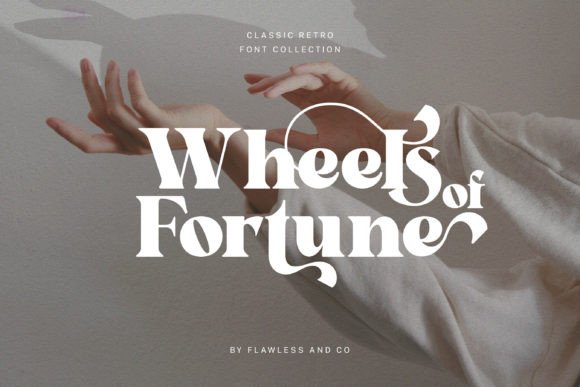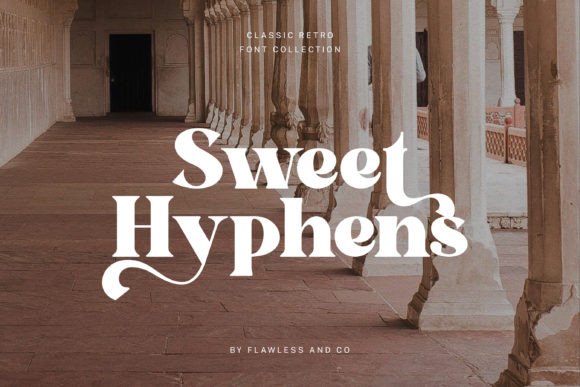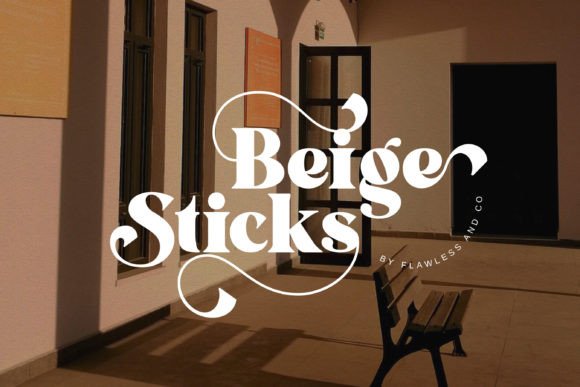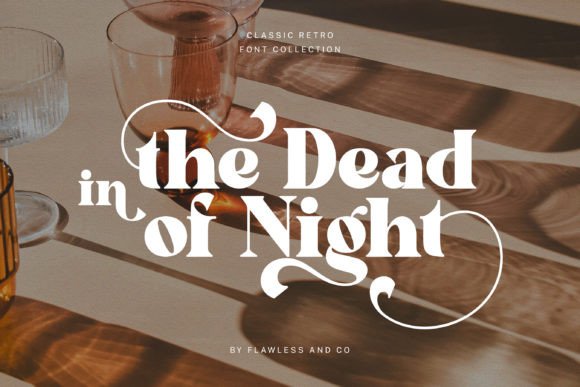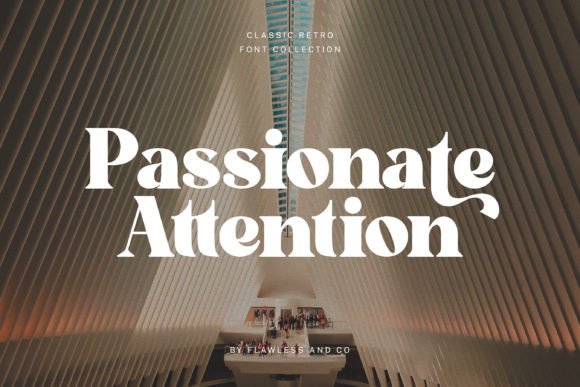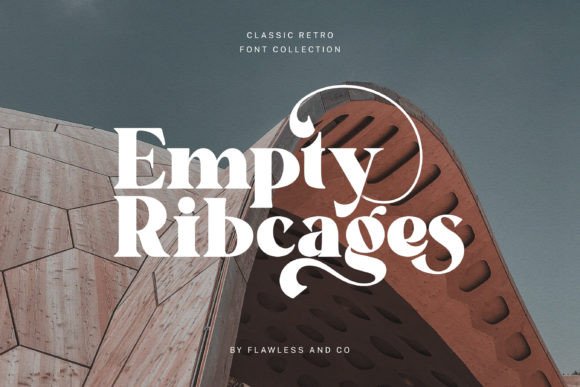
Introducing “Dirty Seven” – A Retro Serif Font
Step into the nostalgia of yesteryear with “Dirty Seven,” a retro serif font that pays homage to the timeless charm of vintage typography. With its bold serifs and distinctive character, “Dirty Seven” is designed to infuse your designs with a sense of retro authenticity and style.
The Inspiration Behind Dirty Seven
The “Dirty Seven” font draws inspiration from the classic typography of the past, with a unique twist. Its design is rooted in the nostalgia of retro aesthetics, evoking memories of vintage posters, classic films, and timeless advertisements. The font’s creator aimed to capture the essence of a bygone era, distilling it into a modern font that’s both nostalgic and fresh.
Key Features of Dirty Seven Font
- Bold Serifs: The “Dirty Seven” font boasts bold serifs that give it a distinctive, eye-catching quality. These serifs add a touch of sophistication and elegance to any design.
- Retro Charm: The font’s retro charm is undeniable, making it perfect for projects that require a vintage or nostalgic feel.
- High Versatility: “Dirty Seven” is a highly versatile font, suitable for a wide range of design applications, from posters and flyers to digital graphics and craft projects.
- Easy to Read: Despite its bold serifs, the “Dirty Seven” font remains easy to read, making it an excellent choice for body text and headlines.
Design Applications for Dirty Seven Font
The “Dirty Seven” font is perfect for designers and crafters looking to add a touch of retro flair to their projects. Here are some design applications where this font truly shines:
- Posters and Flyers: Create eye-catching posters and flyers with a vintage twist, perfect for promoting events, products, or services.
- Digital Graphics: Add a touch of nostalgia to your digital graphics, including social media posts, blog headers, and website designs.
- Craft Projects: “Dirty Seven” is an excellent choice for crafters, suitable for use in scrapbooking, card making, and other paper crafts.
- Branding and Packaging: Use the “Dirty Seven” font to create unique and memorable branding and packaging designs that stand out from the crowd.
Tips for Using Dirty Seven Font Effectively
To get the most out of the “Dirty Seven” font, follow these tips:
- Pair with Modern Fonts: Combine “Dirty Seven” with modern fonts to create a striking contrast and add visual interest to your designs.
- Experiment with Colors: Play with different color schemes to find the perfect combination that complements the font’s retro charm.
- Use in Headlines and Titles: Take advantage of the font’s bold serifs and use it in headlines and titles to grab attention and create a lasting impression.
“Dirty Seven” is a unique and captivating retro serif font that brings a touch of nostalgia and style to any design. With its bold serifs, distinctive character, and high versatility, this font is perfect for designers and crafters looking to add a vintage twist to their projects. Whether you’re creating posters, digital graphics, or craft projects, “Dirty Seven” is sure to become a go-to font in your collection.